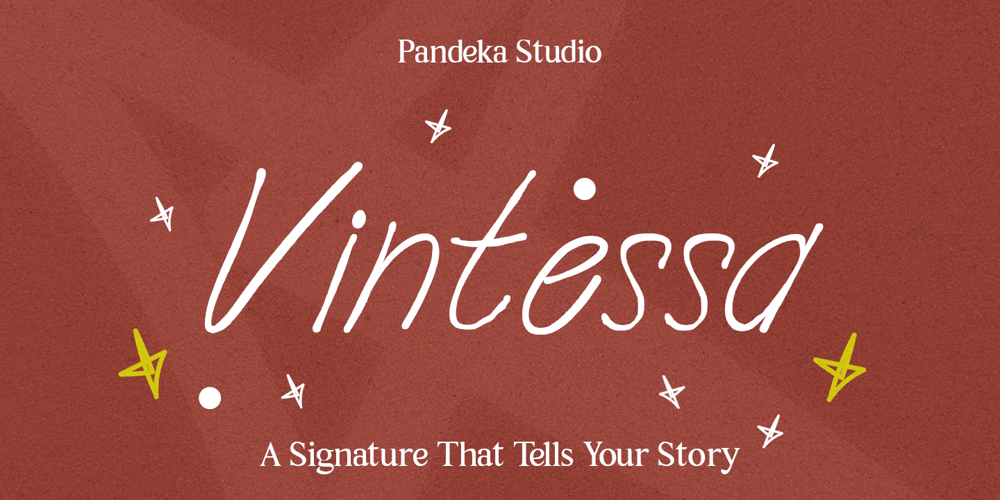
Vintessa Font Family was designed by Sagara Nararya and published by Pandeka Studio. Vintessa contains 1 styles and family package options. Vintessa – An elegant signature script font with a natural handwritten feel, perfect for stylish calligraphy, modern branding, and timeless designs. Featuring alternates, ligatures, and underlines, Vintessa is ideal for elegant signatures, personal touch projects, wedding invitations, luxury packaging, and sophisticated typography.What’s Included: Main Files formats 1 Style: Regular Full Character Set: Uppercase, lowercase, numbers, symbols, and punctuation Easy to Use: Works on both PC & Mac Compatible with Adobe Illustrator, Photoshop, Microsoft Word, Canva, and more PUA Encoded: Fully accessible without additional software Language Support: Danish, English, Estonian, Filipino, Finnish, French, Friulian, Galician, German, Gusii, Indonesian, Irish, Italian, Luxembourgish, Norwegian Bokmål, Norwegian Nynorsk, Nyankole, Oromo, Portuguese, Romansh, Rombo, Spanish, Swedish, Swiss-German, Uzbek (Latin)Elegant Signature Script Handwritten Typography Stylish Calligraphy Modern Branding Timeless Design Personal TouchElevate your designs with Vintessa’s refined and artistic charm!Thank you and happy designing!Pandeka Studio